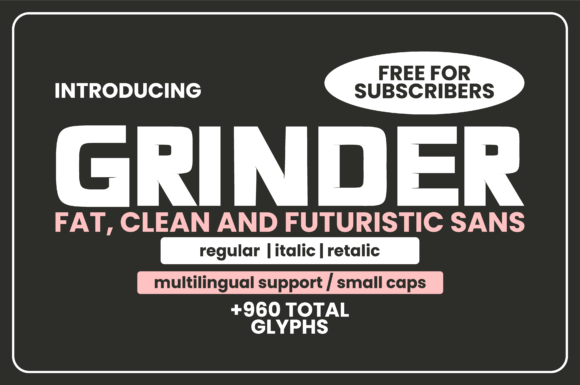
Discover the Elegance of Grinder Font: A Sans Serif Grotesque Masterpiece
Typography plays a vital role in design, and the right font can elevate a project from ordinary to extraordinary. Introducing Grinder, a stunning sans serif grotesque font collection that embodies the perfect blend of style, sophistication, and versatility. Inspired by the principles of German and Swiss design, Grinder boasts a clean, bold, and geometrical structure that is sure to captivate audiences worldwide.
The Grinder Font Collection
Grinder is not just a font, but a comprehensive collection of typographic excellence. The family includes Regular, Italic, and Retalic styles, offering a range of options to suit various design needs. This versatility makes Grinder an ideal choice for designers, allowing them to adapt to different canvases and projects with ease.
Key Features of Grinder Font
- Clean and Bold Structure: Grinder’s geometrical design ensures a crisp and clear appearance, making it perfect for headlines, titles, and short texts.
- Sleek and Elegant Lines: The font’s sleek lines add a touch of sophistication, ideal for high-end designs, luxury brands, and premium products.
- Versatile Adaptability: With Regular, Italic, and Retalic styles, Grinder can be used in a wide range of applications, from print to digital media.
Perfect for High-End Designs
Grinder’s unique characteristics make it an excellent choice for high-end designs, including:
Luxury Packaging
Grinder’s elegant lines and sophisticated style make it perfect for perfume labels, cosmetics packaging, and other luxury products. The font’s bold structure ensures that your brand stands out on crowded store shelves.
Magazine Covers and Poster Designs
Grinder’s clean and geometrical structure makes it an excellent choice for magazine covers, poster designs, and flyers. The font’s versatility allows it to be used for both headlines and body text, creating a cohesive and stylish look.
Bringing Life to Your Words
Grinder is not just a font; it’s a tool that brings life to your words. Whether you’re creating a manifesto, designing a flyer, or crafting social media posts, Grinder ensures that your message is conveyed with style and sophistication.
Digital and Print Media
Grinder’s adaptability makes it suitable for both digital and print media. Use it to create engaging social posts, or incorporate it into your print materials, such as brochures, catalogs, and business cards.
Why Choose Grinder Font?
With so many fonts available, why choose Grinder? Here are a few compelling reasons:
Unparalleled Style and Sophistication
Grinder’s unique blend of style and sophistication ensures that your designs stand out from the crowd. The font’s elegance and refinement make it perfect for high-end designs and luxury brands.
Versatility and Adaptability
Grinder’s comprehensive collection and versatile adaptability make it an excellent addition to any designer’s toolkit. The font can be used in a wide range of applications, from print to digital media.
Time-Saving and Efficient
With Grinder, you can create stunning designs quickly and efficiently. The font’s clear and geometrical structure ensures that your text is easy to read, saving you time and effort in the design process.
In conclusion, Grinder is a masterpiece of typography that deserves a spot in every designer’s toolkit. Its unique blend of style, sophistication, and versatility makes it perfect for high-end designs, luxury brands, and premium products. Whether you’re working on print or digital media, Grinder is sure to elevate your designs to new heights.